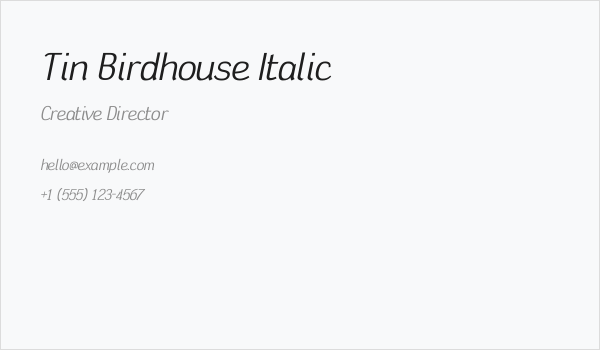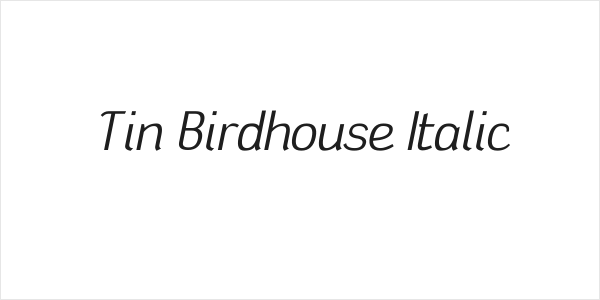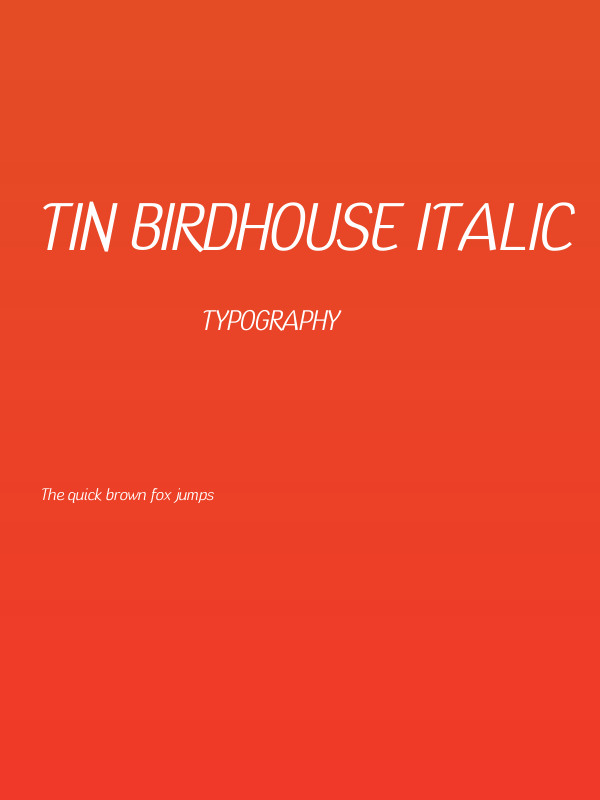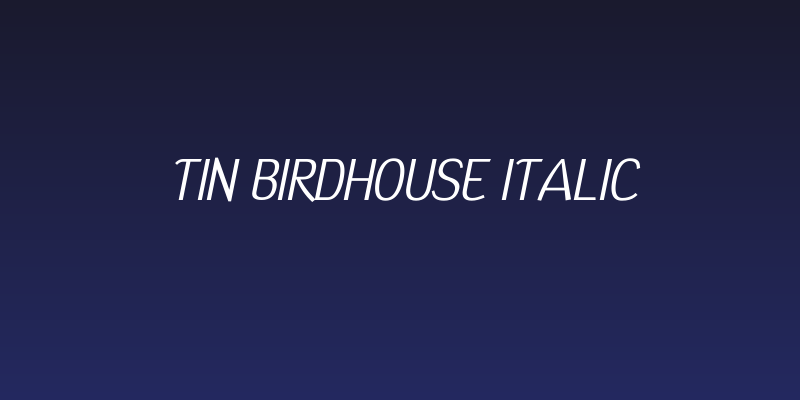
Tin Birdhouse Italic Font
Tin Birdhouse Italic Description
This font features a modern and sleek italic style, characterized by its smooth, flowing lines and slight forward slant. The uppercase letters are tall and elegant, while the lowercase letters maintain a consistent, harmonious appearance. The numerals are clear and easy to read, complementing the overall design. Special characters are well-integrated, maintaining the font's cohesive look. The font's design is both stylish and functional, making it suitable for a variety of applications.
| Use Case | Headlines, Logos, Editorial design |
| Proposed Projects | Ideal for branding, advertising, and editorial design projects where a modern and stylish look is desired. |